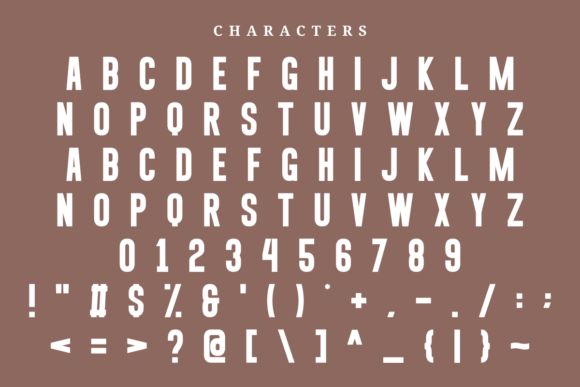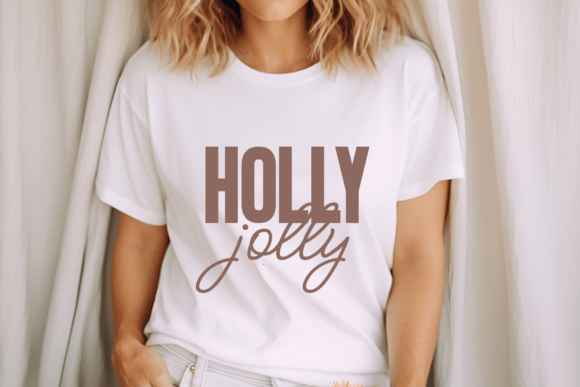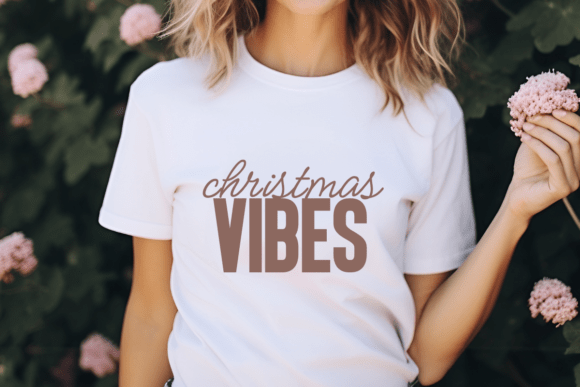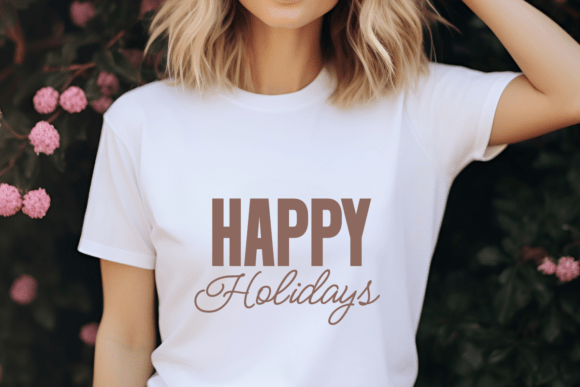
Introduction to Grinch Squad Font
Grinch Squad Font is a strikingly bold and modern condensed display typeface designed to capture attention and deliver maximum impact.
While its strong, solid structure makes it an excellent choice for year-round branding and high-impact headlines, its name makes it an absolute seasonal bestseller for holiday-themed designs This font is a crucial addition to the toolkit of any Print on Demand (POD) seller or crafter preparing for the Christmas season.
Key Features of Grinch Squad Font
Why Choose Grinch Squad Font?
Grinch Squad Font offers exceptional quality and versatility, making it a valuable addition to your design toolkit. Whether you’re creating for personal projects or commercial use, Grinch Squad Font delivers professional results.